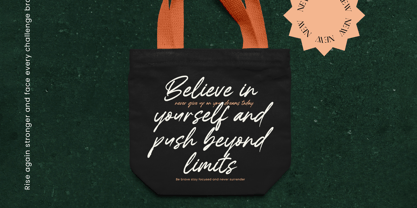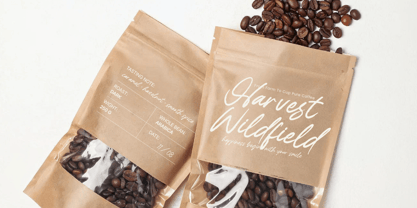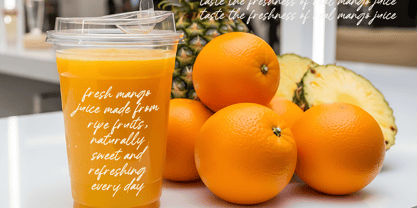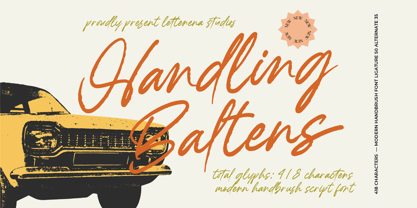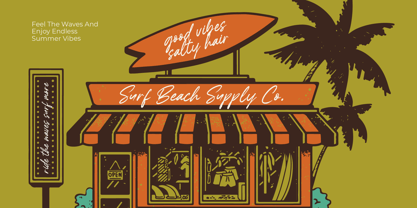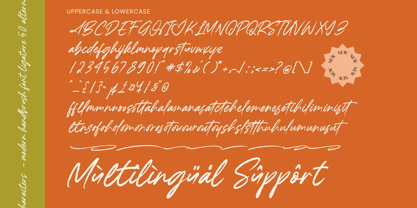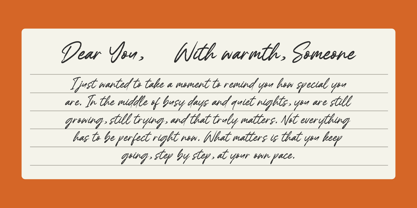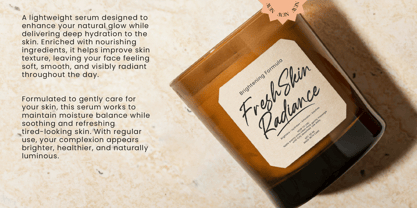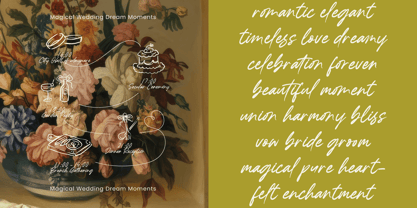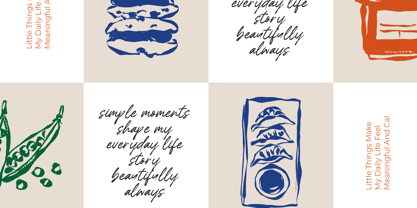
Handling Baltens
by Letterena Studios
The Handling Baltens Font Family was designed by Heru Utama Putra and published by Letterena Studios. Handling Baltens contains 2 styles and family package options. More about this family
Handling Baltens - Modern Handbrush Script Elevate your design projects with the raw energy and refined craftsmanship of Handling Baltens - Modern Handbrush Script. This high-impact typeface features expressive brush strokes and a dynamic rhythm that captures the essence of authentic hand-lettering. With its textured edges and fluid motion, it brings a bold personality to any creative layout, ensuring your message stands out with undeniable visual authority and organic appeal. Discover the ultimate solution for lifestyle branding and automotive design with a typeface built for performance. Handling Baltens - Modern Handbrush Script is the perfect choice for luxury packaging, apparel design, and high-end editorial layouts that require a bespoke touch. Whether you are crafting compelling social media graphics or distinctive logos, this font provides the aesthetic versatility needed to dominate the modern creative market and appeal to a premium audience.